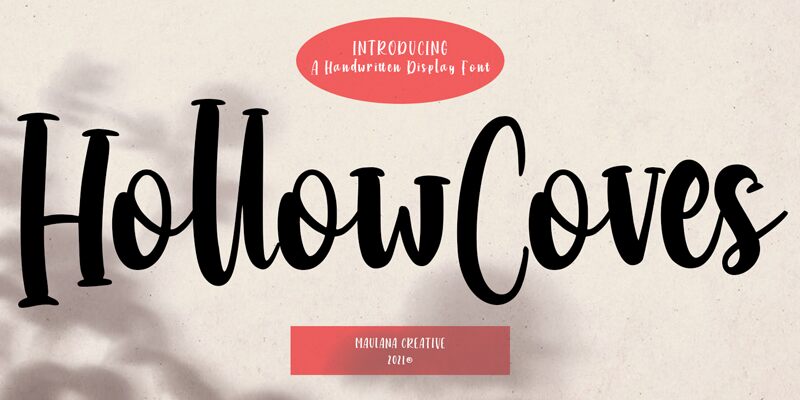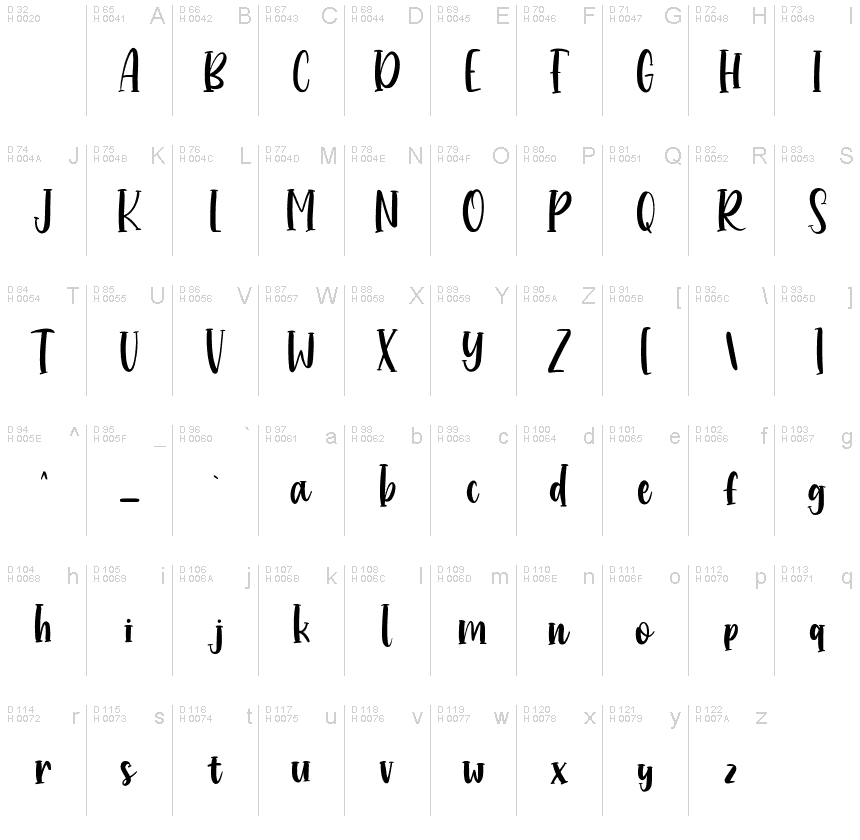
Hollowcoves Free Regular
With its charming handwritten style and condensed width, Hollowcoves is the perfect font for creating elegant designs that are both sophisticated and approachable. Whether you're looking to craft a logo for your boutique business or design a social media post for your trendy blog, this semi-bold typeface can add a touch of whimsy to any project. Its unique curves and loops exude warmth and personality, making it ideal for invitations, packaging, or even book covers. Let Hollowcoves elevate your next design endeavor with its playful yet refined aesthetic.